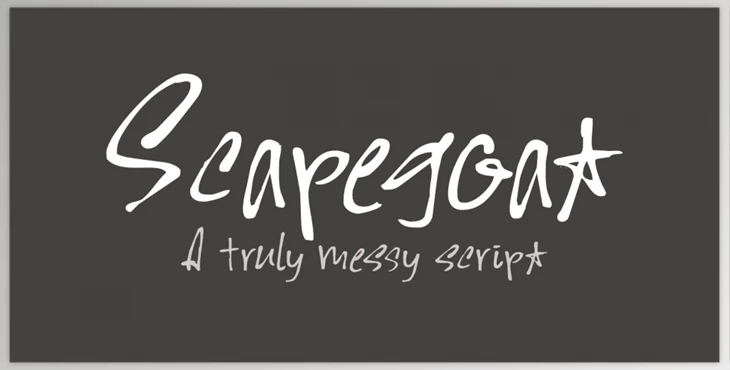
Scapegoat Font Family – 2 Fonts:
The font was designed created by David Kerkhoff, Scapegoat is a hand-drawn typeface family created by David Kerkhoff. The typeface comes in two different styles. It was released by Hanoded.
Thus, Scapegoat was born. I made use of stainless steel round nib, along with Chinese ink. The result is a very messy font.